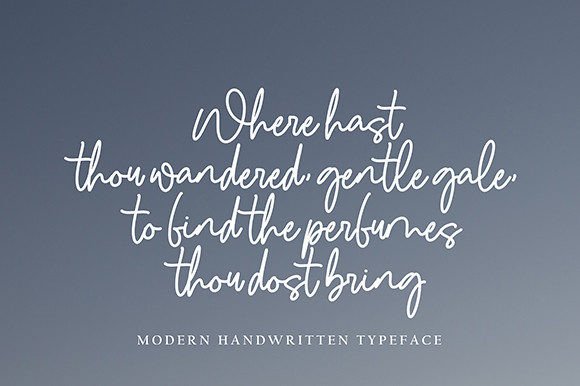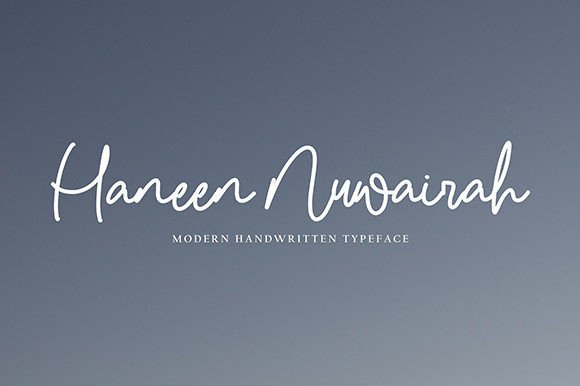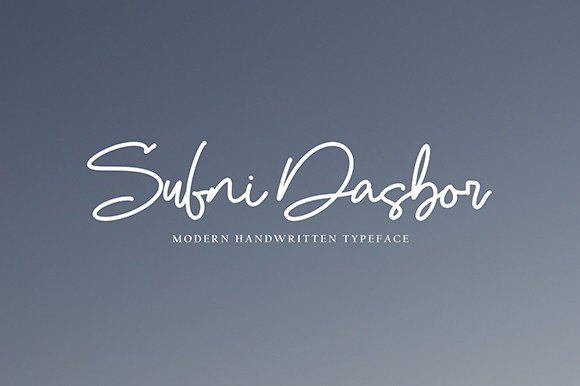
Introduction to Jhon Marco Font
As a designer, have you ever stumbled upon a font that instantly transports you to a world of elegance and sophistication? For me, that moment came when I discovered the Jhon Marco Font. Its flowing lines and delicate curves seemed to dance across the screen, beckoning me to create something truly special.
Whether you’re working on a high-end branding project, a wedding invitation, or an editorial design, Jhon Marco Font is the perfect choice. Its natural, handwritten feel adds a personal touch to any creative project, making it stand out from the crowd. With its high quality and transparent background, this font is a valuable resource for designers looking to elevate their work.
Key Features of Jhon Marco Font
- High-quality design: Jhon Marco Font is a premium font with a transparent background, making it perfect for creative projects that require a touch of elegance.
- Large character set: The font includes a wide range of characters, including Latin, Cyrillic, and Greek alphabets, making it suitable for a variety of creative projects.
- Unique characteristics: The font features a unique, modern design with clean lines and elegant curves, making it perfect for creative projects that require a touch of sophistication.
Honest Review: Jhon Marco Font
As a designer, I’m always on the lookout for high-quality design resources that can elevate my creative projects. Recently, I stumbled upon the Jhon Marco Font, and I’m excited to share my honest review with you.
- The font is highly legible and comes in a range of weights, making it perfect for both body text and headings.
- The transparent background option is a great feature for creating clean and minimalist designs.
- The font may not be suitable for all types of projects, particularly those requiring a more formal or traditional tone.
- The font’s design is quite modern, so it may not appeal to designers who prefer more classic or timeless fonts.
Overall, I’m impressed with the Jhon Marco Font’s high quality and versatility. It’s a great addition to any designer’s toolkit, and I’m sure it will come in handy for many creative projects.
Jhon Marco Font is a free download design resource that offers high-quality typography for creative projects. This versatile font features a transparent background, making it ideal for various applications.
For optimal results, use Jhon Marco Font in combination with other design elements to create a cohesive look.
Experiment with different font sizes, colors, and styles to achieve the desired effect.
Jhon Marco Font is suitable for various creative projects, including:
Business cards and brochures
Posters and flyers
Website headers and footers
Presentations and reports